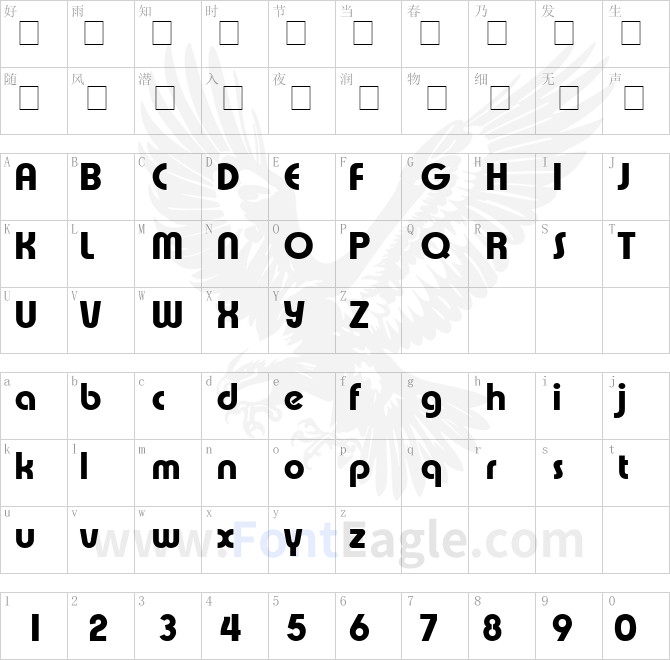
- Font name:Xpress SF
Xpress-SF-Bold is a great font, widely used in graphic design, single-page menu design, poster design and other fields, and is deeply loved by designers.Xpress-SF-Bold download.